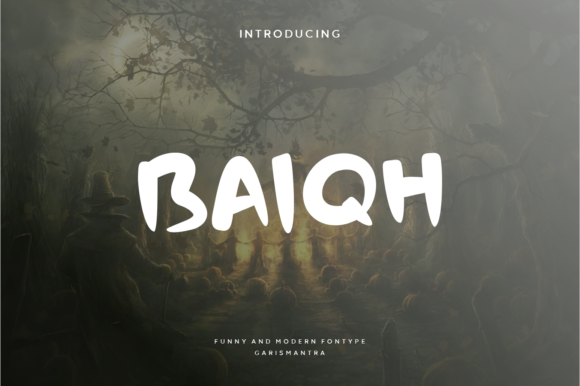
Discover the Spooky yet Fun Charm of Baiqh Font
Have you ever been brainstorming a new design project, and suddenly, a spark of creativity hits you? You envision a mysterious and playful vibe that transports your audience to a world of wonder. That’s exactly what the Baiqh Font can bring to your designs.
Baiqh Font is a unique script font that exudes a touch of spookiness, yet remains approachable and fun. Its versatility makes it an ideal choice for a wide range of projects, from branding and apparel designs to illustrations and logo creations.
For designers, the Baiqh Font offers a valuable asset – the ability to add an extra layer of personality to their work. With its one-of-a-kind style, designers can create captivating designs that stand out from the crowd and leave a lasting impression.
Baiqh Font Key Features
- Unique Characteristics: The font features a unique blend of traditional and modern elements, creating a distinctive and eye-catching visual style.
Baiqh Font Review
I recently had the chance to work with the Baiqh Font, and I must say, it has some interesting qualities. Here are my thoughts:
- Unique aesthetic: The Baiqh Font has a distinct, eye-catching style that can add a touch of sophistication to any design.
- Good legibility: The font is clear and easy to read, even at smaller sizes.
- Customizability: The font comes in various weights and styles, allowing for some flexibility in terms of design.
- Limited language support: The font may not be suitable for languages that require more complex typography, such as Arabic or Hebrew.
- No bold or italic variations: While the font comes in various weights, it lacks bold and italic variations, which can be a limitation in certain design contexts.
- Not ideal for body text: The font is more suited for headings and titles, as its unique style can be overwhelming for large blocks of text.
Overall impression
Overall, I think the Baiqh Font is a great choice for designers who want to add some visual interest to their projects. However, its limitations mean it may not be the best fit for every design scenario. With some careful consideration and planning, it can be a valuable addition to any design toolbox.
Getting the Most Out of Baiqh Font
Here are some tips to get the most out of Baiqh Font:
- Experiment with different font sizes and styles.
- Pair Baiqh Font with other fonts for a unique look.
- Use Baiqh Font for headings and titles for maximum impact.
Baiqh Font is ideal for:
- Designing creative and unique branding materials.
- Creating eye-catching social media graphics.
- Adding a touch of elegance to presentations and documents.
Alternatives to Baiqh Font
Great Vibes Font is a modern script font designed by Laurence Penney. It is ideal for use in titles, headings, and branding materials where a touch of elegance is required. Great Vibes Font is similar to Baiqh Font in its cursive and elegant style, but it has a more refined and sophisticated feel. It is also highly legible and versatile, making it suitable for a wide range of applications.
Pacifico Font is a beautiful, elegant script font designed by Vic Fieger. It is perfect for use in high-end branding, advertising, and editorial materials where a touch of sophistication is required. Pacifico Font is similar to Baiqh Font in its flowing and cursive style, but it has a more relaxed and casual feel. It is also highly legible and easy to read, making it suitable for use in a wide range of applications.
Dancing Script Font is a beautiful, elegant script font designed by Pablo Impallari. It is ideal for use in titles, headings, and branding materials where a touch of whimsy and elegance is required. Dancing Script Font is similar to Baiqh Font in its flowing and cursive style, but it has a more playful and dynamic feel. It is also highly legible and versatile, making it suitable for a wide range of applications.